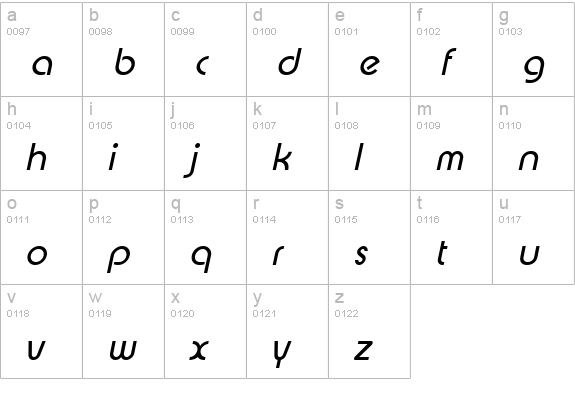
Xpressive Italic is a distinctive, italic variant in the Xpressive typeface family \xE2\x80\x94 well suited to design and typography projects.
Xpressive Italic font is a stunning and elegant typeface that exudes sophistication and creativity. Its sleek lines and stylish curves give any text a modern and artistic flair, making it perfect for a variety of design projects. The italicized style adds a touch of drama and emphasis, making your words stand out beautifully. The Xpressive Italic font is not only visually appealing but also incredibly versatile, suitable for anything from branding and marketing materials to invitations and social media graphics. Its unique and eye-catching design will captivate your audience and leave a lasting impression. Best of all, Xpressive Italic font is completely free to download at FontsMarket.com. This means you can elevate your designs without having to worry about breaking the bank. So why wait? Add a touch of sophistication and creativity to your projects today with the Xpressive Italic font.